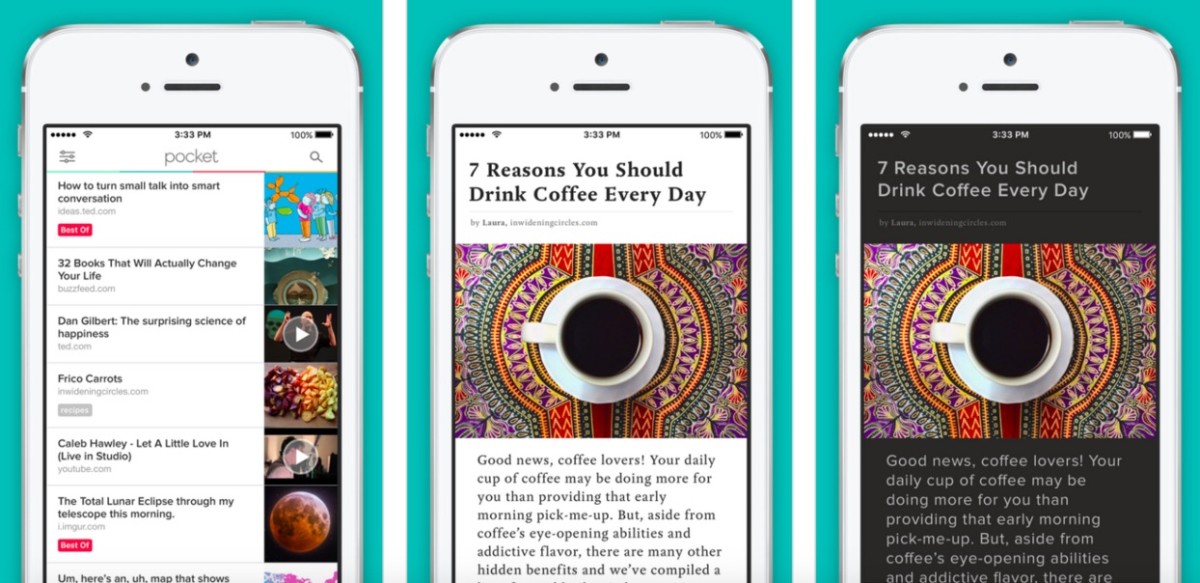
Pocket update on iOS adds custom fonts and support for dyslexic readers
Read-it-later service Pocket has updated its iOS app for Premium subscribers.
Pocket has also added a new font that’s specifically tailored to make the reading experience easier for people with dyslexia. The font, called Dyslexie, is the only new feature that is also available in Pocket’s free tier.
A new Auto-Dark Mode allows Premium users to adjust the app’s reading theme depending on the light or darkness of where they are, which should make for more comfortable reading.